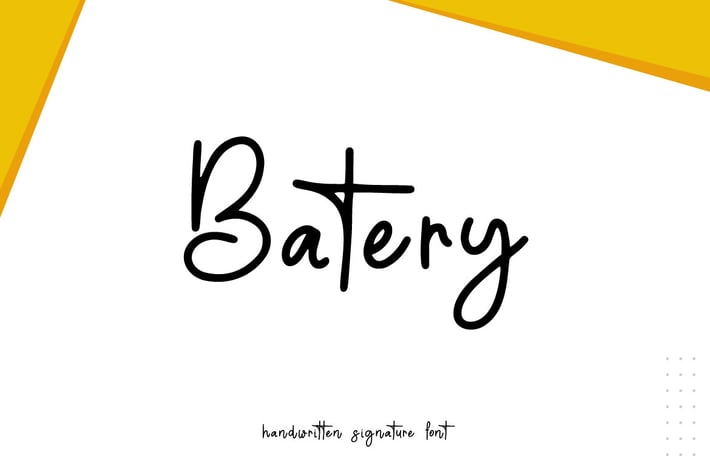
Batery - Script Handwritten Font
Hello! Batery is a script signature handwritten font.
Batery can be used in any works such as flyer, book title, advertisement, social media content, logo and many more.